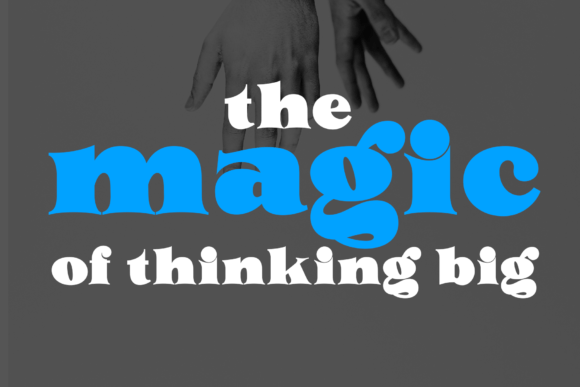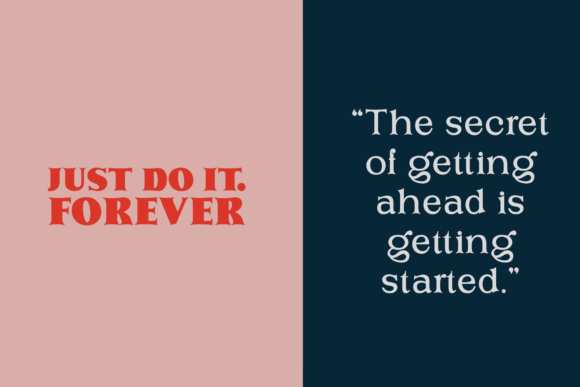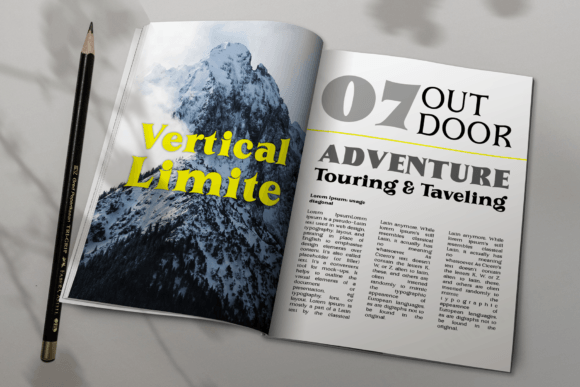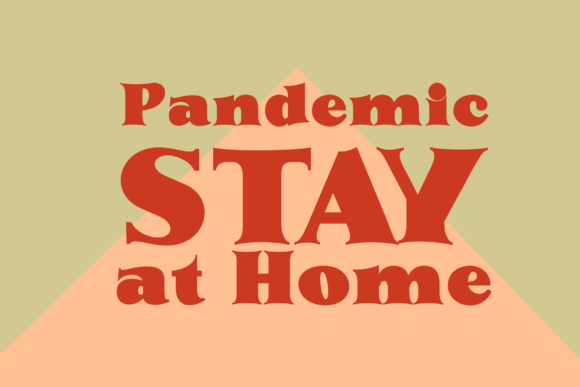
About Marston Font
Marston is not just a font; it’s a robust Serif font family with a distinctive and bold character across its seven unique variants. Designed to provide a clear and elegant look, Marston is your go-to choice for creating impactful logos, memorable quotes, compelling advertisements, and more.
The strength and boldness of Marston’s character shine through in each variant, making it a versatile font family that adapts to various design needs. Whether you’re working on a corporate logo that demands a strong presence, crafting impactful quotes that leave a lasting impression, or designing eye-catching advertisements, Marston delivers with clarity and elegance.
What sets Marston apart is its well-defined and robust serif design. Each variant within the family carries a unique personality, allowing you to choose the one that best suits the tone and style of your project. From classic and timeless to modern and edgy, Marston’s variants cater to a range of design aesthetics.
Marston is crafted to make a statement. Its bold and strong character ensures that your text stands out, whether it’s in a logo, a quote, or an advertisement. The clear and elegant look of Marston adds a touch of sophistication to your designs, making it a reliable choice for projects that demand a high level of visual impact.
If you’re seeking a Serif font family that exudes strength, boldness, and elegance, Marston is an excellent option. Its versatility makes it suitable for a variety of applications, allowing you to express your message with clarity and style. Whether you’re a designer working on professional projects or an individual embarking on creative endeavors, Marston is here to elevate your typography game.
In the realm of fonts, Marston stands tall as a go-to choice for those who appreciate the marriage of strength and elegance in their designs. It’s not just about letters; it’s about creating a visual experience that commands attention. So, whether you’re designing logos, quotes, advertisements, or more, let Marston be your trusted font family for making a bold and clear statement in every project.